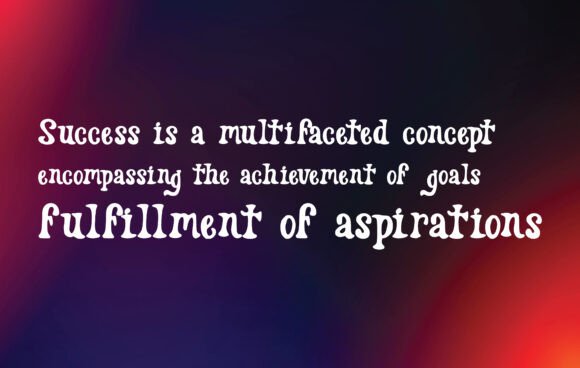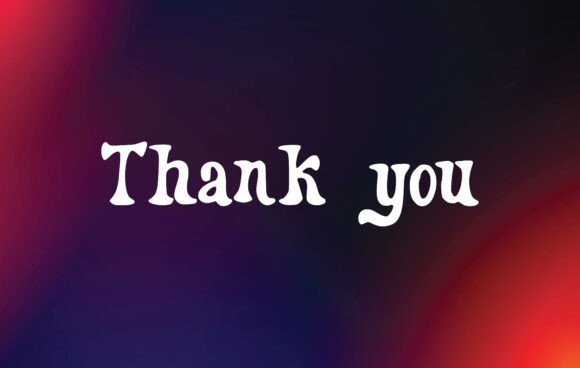
Beverly Font: The Ultimate Go-to Favorite for Creative Designs
Are you tired of using the same old fonts for your designs? Look no further than the stunning Beverly Font. This versatile and eye-catching font is designed to bring your creative ideas to life, making it a great addition to any designer’s toolkit. In this article, we’ll explore the features and benefits of the Beverly Font, and why it’s the perfect choice for a wide range of design projects.
What Makes Beverly Font So Special?
Beverly Font is made to be a go-to favorite—versatile, eye-catching, and ready to bring your creative ideas to life. Its clear and easy-to-read design makes it a great choice for both titles and body text, allowing you to use it for a wide range of design projects. Whether you’re designing magazine covers, t-shirts, social media posts, branding, wedding invitations, or greeting cards, this font fits right in with style and personality.
Key Features of Beverly Font
• Versatility: Beverly Font is designed to be versatile, making it perfect for a wide range of design projects, from print to digital.
• Eye-catching: The font’s unique design makes it stand out from the crowd, adding a touch of personality to your designs.
• Clear and Easy to Read: The font’s clear and easy-to-read design makes it perfect for both titles and body text.
• Style and Personality: Beverly Font has a unique style and personality that adds a touch of elegance and sophistication to your designs.
Design Applications for Beverly Font
Beverly Font is perfect for a wide range of design projects, including:
• Magazine Covers: Add a touch of elegance and sophistication to your magazine covers with Beverly Font.
• T-Shirts: Create eye-catching and stylish t-shirt designs with Beverly Font.
• Social Media Posts: Add a touch of personality to your social media posts with Beverly Font.
• Branding: Use Beverly Font to create a unique and memorable brand identity.
• Wedding Invitations: Add a touch of elegance and sophistication to your wedding invitations with Beverly Font.
• Greeting Cards: Create beautiful and stylish greeting cards with Beverly Font.
Why Designers and Crafters Love Beverly Font
Designers and crafters love Beverly Font for its versatility, style, and personality. Here are just a few reasons why:
• Easy to Use: Beverly Font is easy to use and works seamlessly with a wide range of design software.
• High-Quality Design: The font is designed to high-quality standards, ensuring that your designs look professional and polished.
• Unique Style: Beverly Font has a unique style that adds a touch of personality to your designs.
• Time-Saving: With Beverly Font, you can create stunning designs in no time, saving you time and effort.